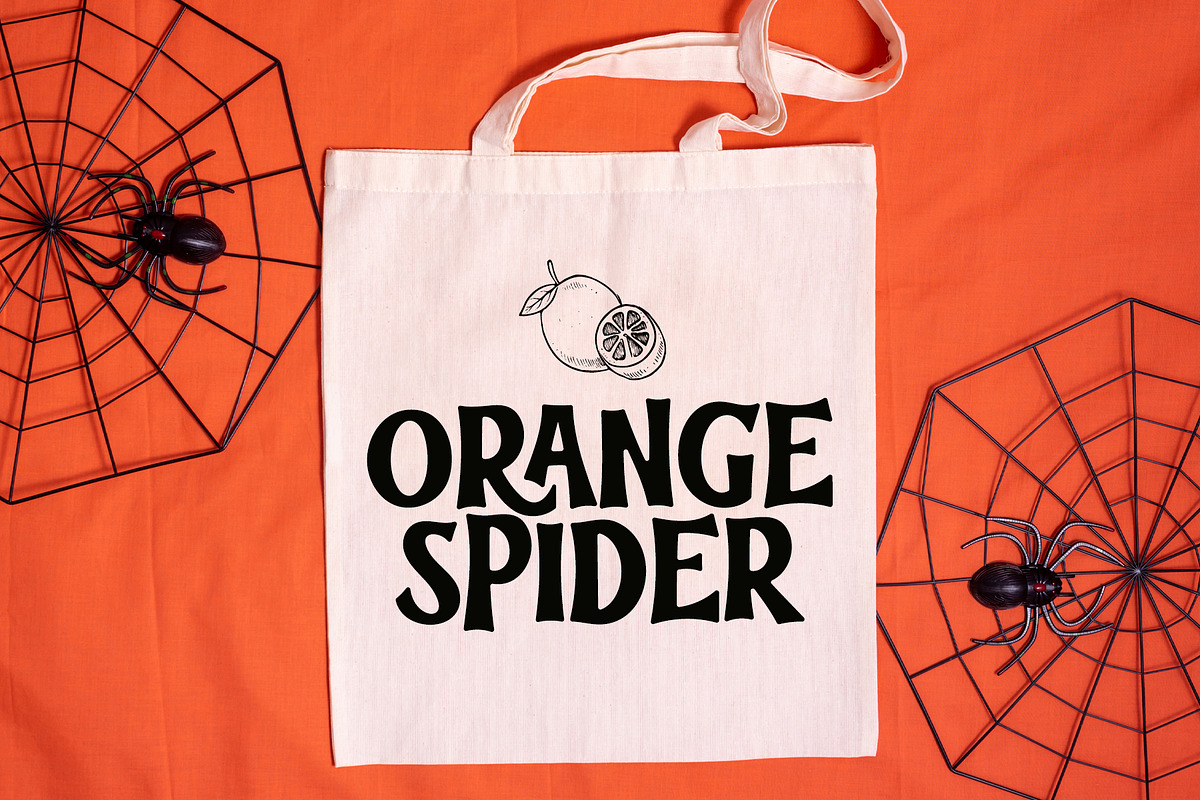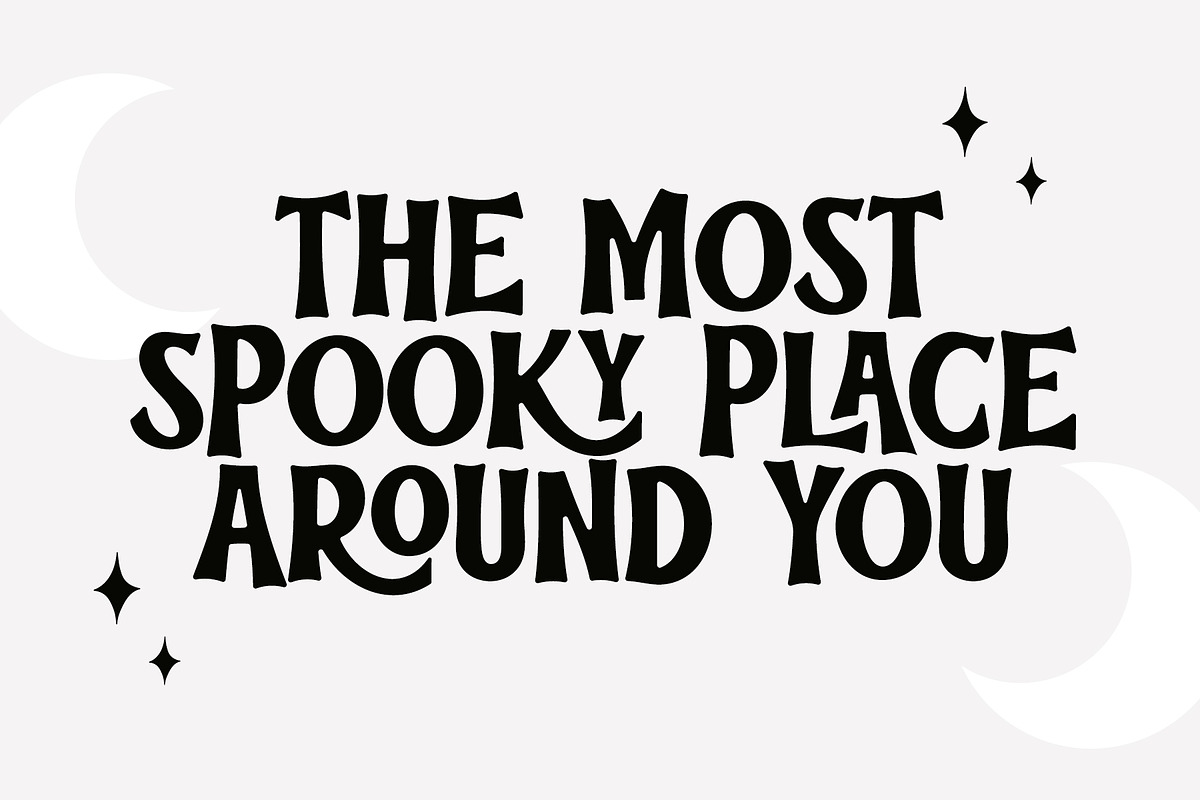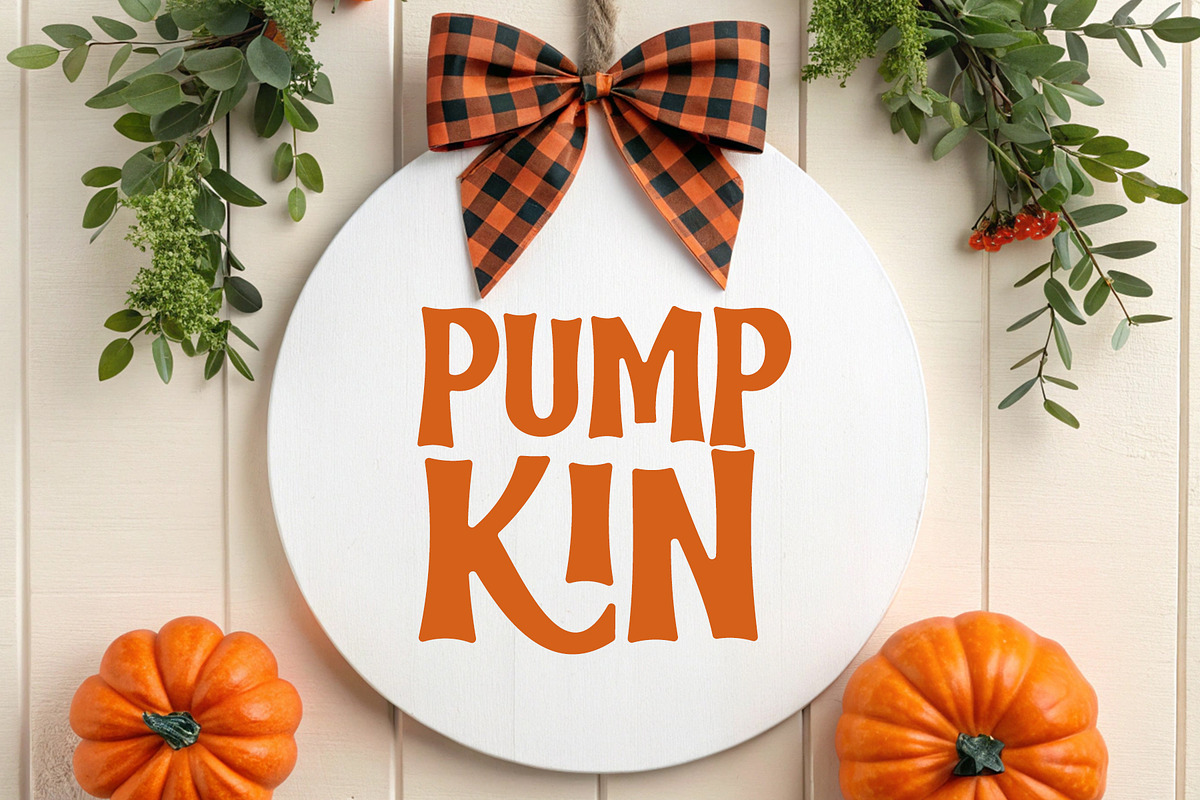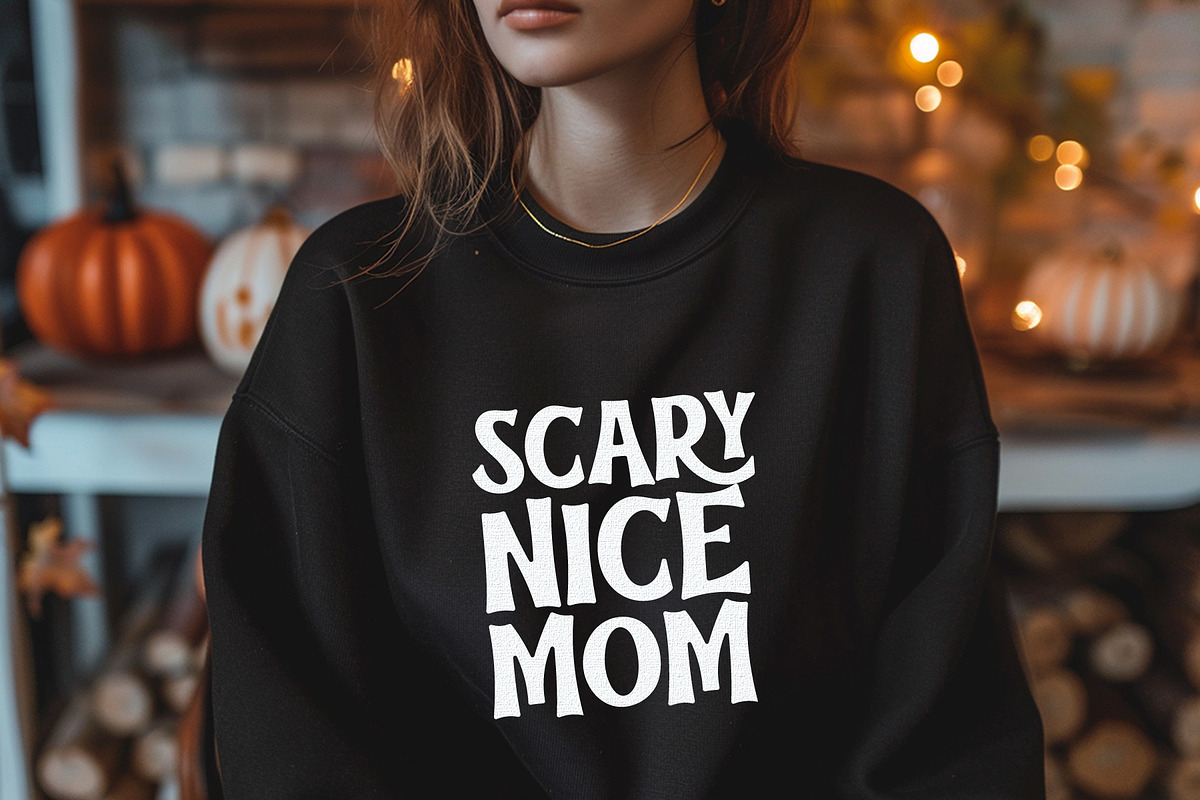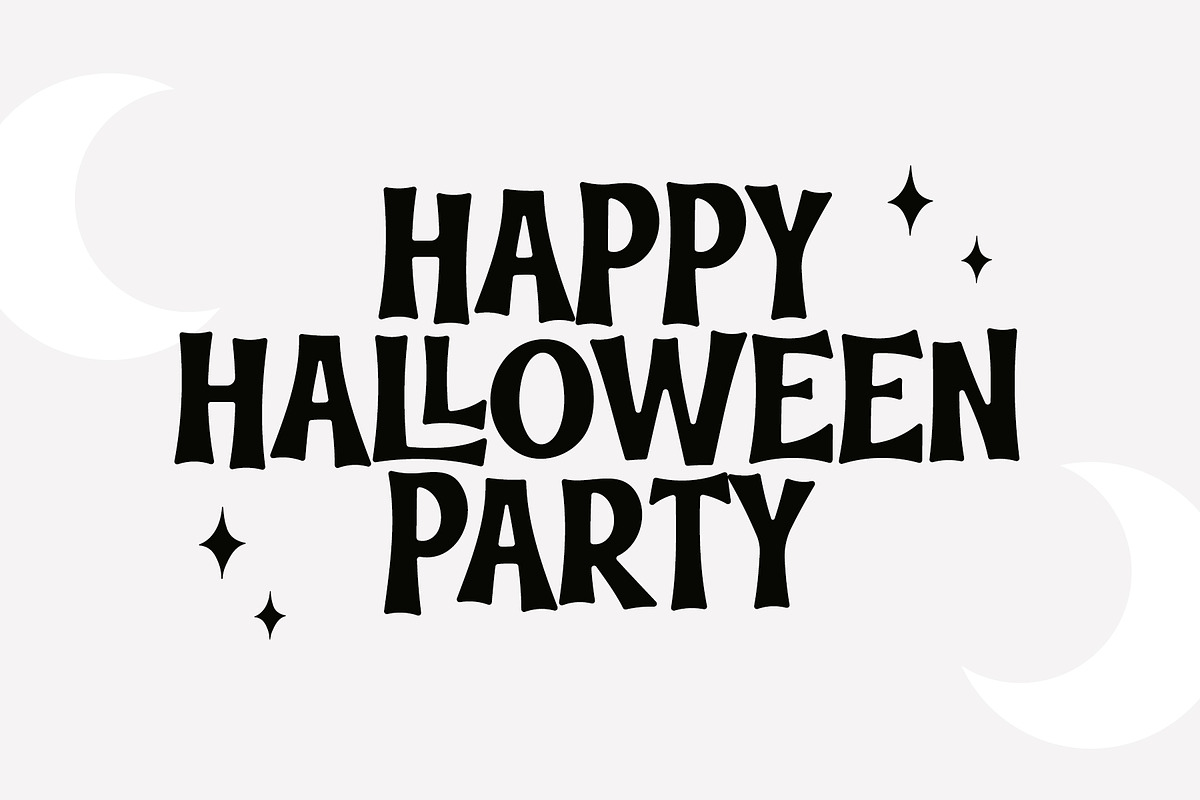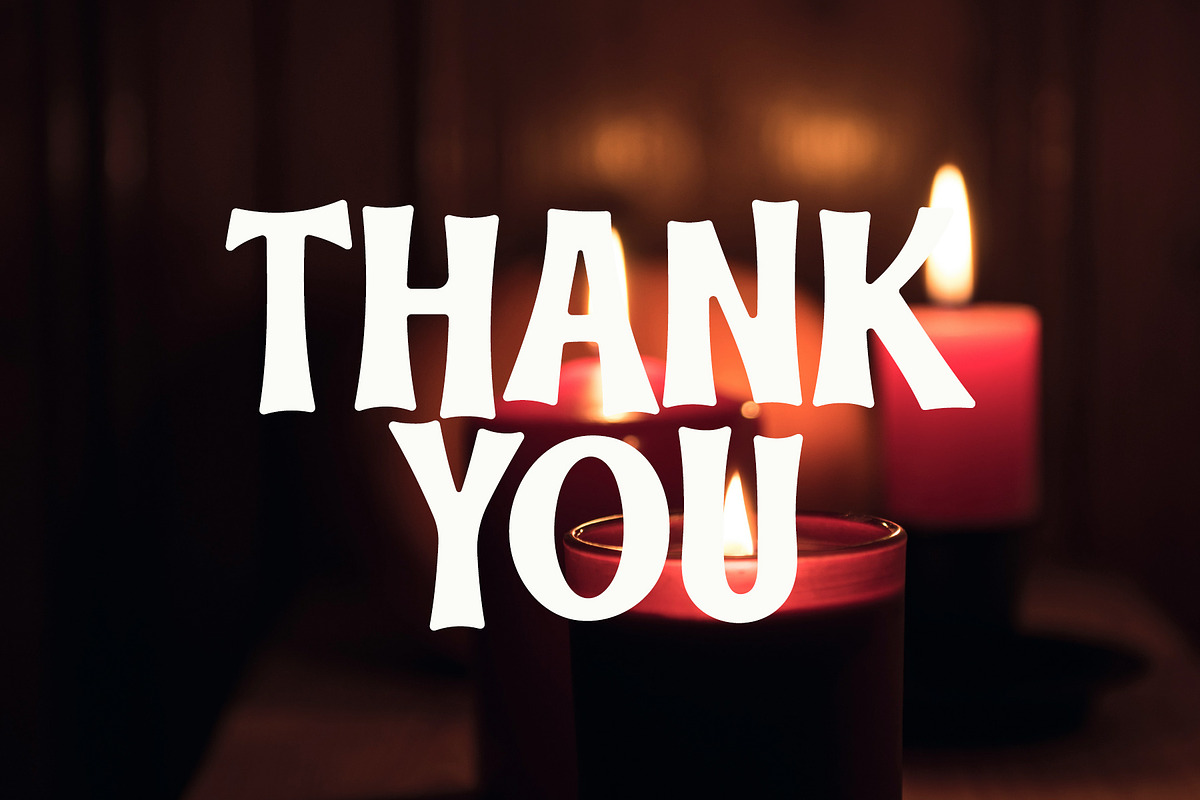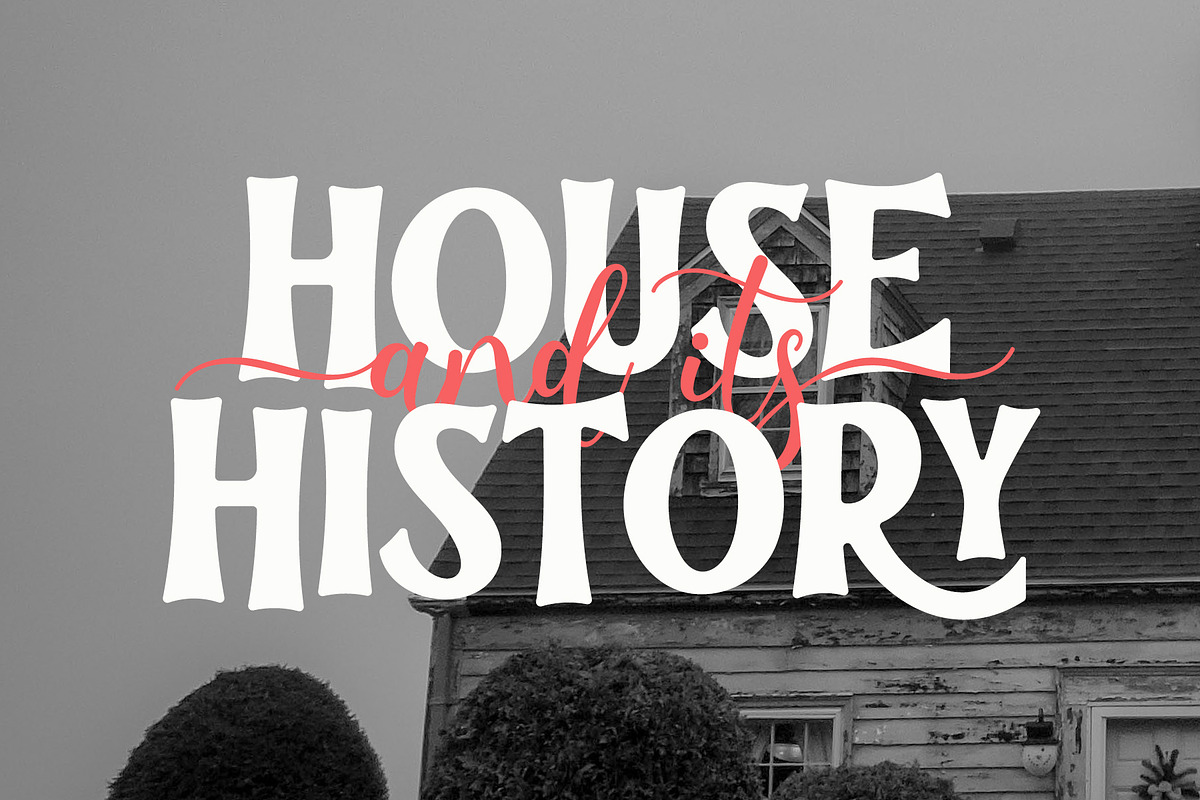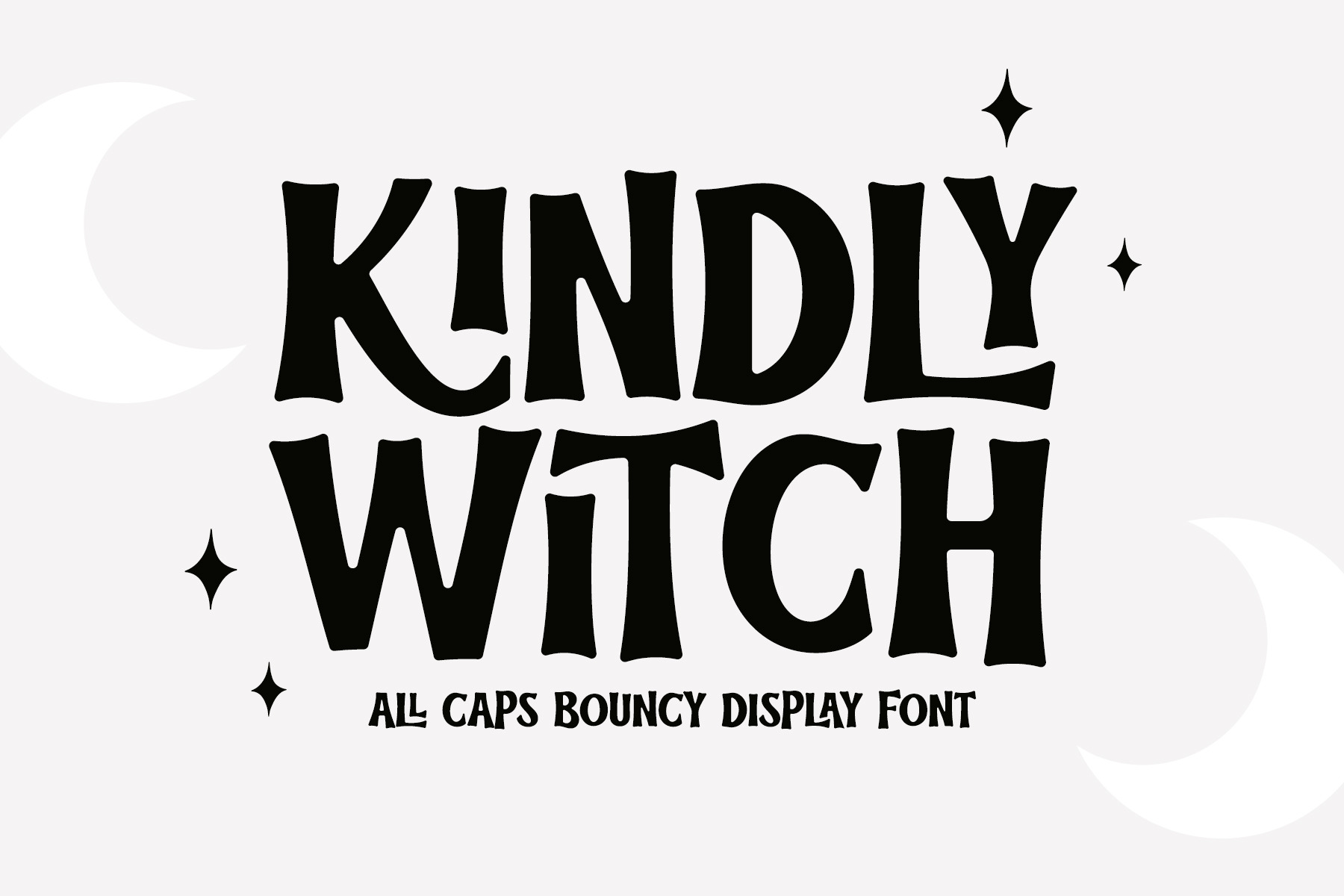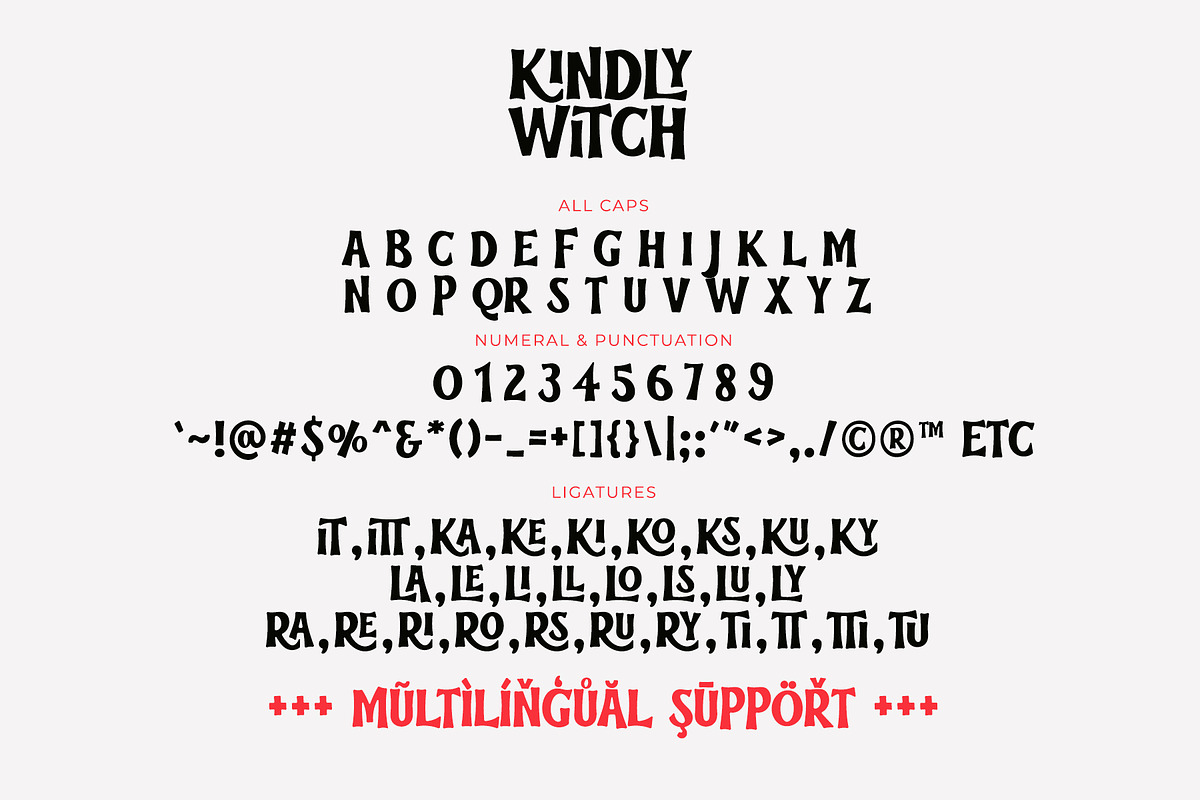
Kindly Witch - Bouncy Display Font
Kindly Witch is all caps display font with bouncy style. This font has some ligatures to give more options in designing.
Kindly Witch is perfect font for design with festive spooky vibes, such as Halloween, t-shirt, crafting, stickers, and many more.
- All Caps (with some ligatures)
- Most Multilingual Accent